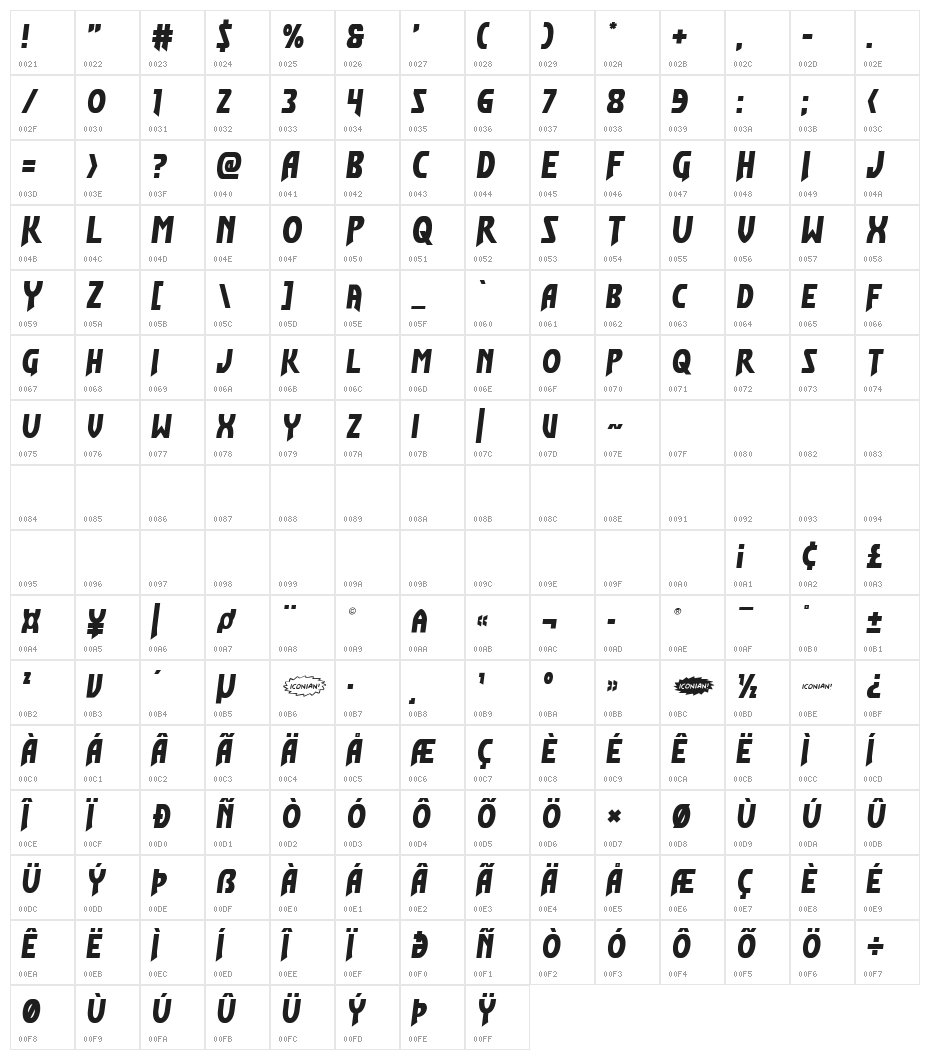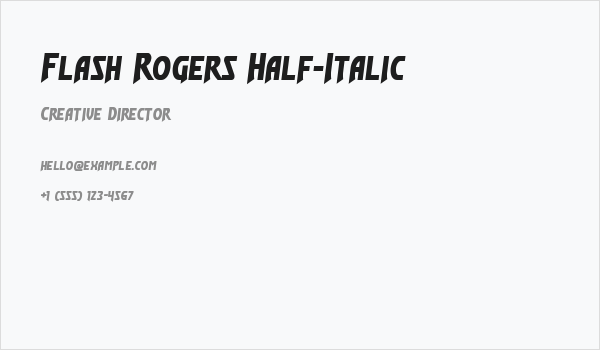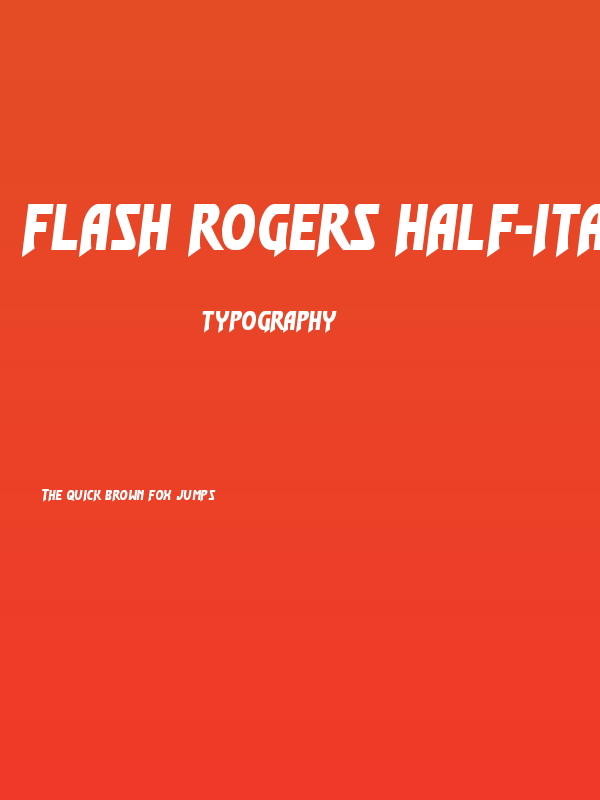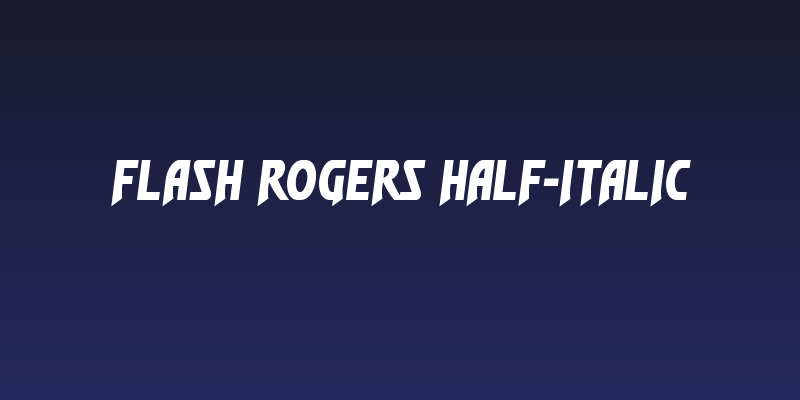
Flash Rogers Half-Italic Font
Flash Rogers Half-Italic Description
This font features a bold and dynamic style with a distinct slant, giving it a sense of motion and energy. The characters are sharply angled, with strong geometric forms that create a sense of urgency and power. The uppercase and lowercase letters maintain a consistent style, with the lowercase slightly smaller but equally impactful. The numerals and special characters follow the same bold and angular design, ensuring uniformity across all text elements. This font's unique style makes it stand out, making it ideal for attention-grabbing designs.
| Proposed Projects | Ideal for sports branding, action movie posters, dynamic advertisements, and video game titles. |